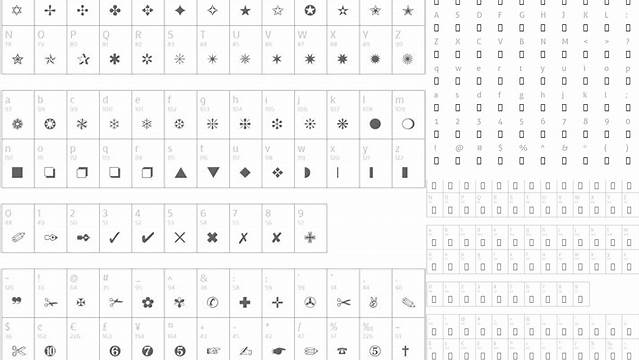
Hey guys! Ever stumbled upon those quirky little symbols and dingbats and wondered where they came from? Well, chances are, you've encountered Zapfdingbats, a classic font that's been around for ages. In this article, we're diving deep into Zapfdingbats BT Normal font, discussing where you can snag it for free, how to use it, and a bit of its history. So, buckle up, and let's get started!
What Exactly is Zapfdingbats BT Normal Font?
Let's start with the basics. Zapfdingbats isn't your typical alphabet font. Instead of letters and numbers, it's filled with a collection of symbols, icons, and dingbats. These include things like pointing hands, stars, checkmarks, scissors, and other decorative elements. The 'BT Normal' part refers to Bitstream, the company that made the font widely available. It's a specific version of the Zapfdingbats font that you'll often find bundled with other fonts or available for separate download. This makes it incredibly versatile, because it lets you add visual flair to your documents and designs. The beauty of Zapfdingbats lies in its simplicity and ease of use. You don't need any fancy design software to utilize it. You can simply type in a character, and boom, you get a symbol! This accessibility is a big reason why the font has remained popular for so many years. It offers a quick and effortless way to enhance your text and make it more engaging.
Zapfdingbats BT Normal font, is a collection of non-alphabetic characters or symbols within the typeface. It includes a variety of graphic elements, such as bullets, arrows, checkmarks, scissors, asterisks, and other ornamental glyphs. This font is not designed for standard text but serves as a supplementary tool for adding visual interest and organization to documents. Each character in Zapfdingbats corresponds to a specific symbol, and they can be inserted into text by typing the associated keyboard key. The symbols available in Zapfdingbats provide a convenient means to create visual cues, highlight important information, and enhance the overall aesthetic of written materials. Zapfdingbats font includes the common symbols such as the scissors. If you're looking for a way to add a touch of visual flair or emphasize important points in your text, this font could be a great addition to your design toolkit. Using these symbols can significantly improve the readability and visual appeal of documents, making information more engaging and easier to digest. So whether you need bullets for lists or attention-grabbing symbols to emphasize key ideas, Zapfdingbats offers a practical and user-friendly solution.
Zapfdingbats became very popular with the advent of desktop publishing, as it allowed users to easily include a variety of graphic elements in their documents without the need for external images. This made it a go-to choice for creating visually appealing brochures, newsletters, and other materials. As a result, the font saw widespread adoption and became a standard in many word processors and design software. Furthermore, because it was included with many software packages, it was readily available to a wide audience, which further solidified its status as a widely used font. Its ease of use and the range of symbols it provided made it an invaluable resource for anyone wanting to add visual interest to their text. Even today, despite the availability of more advanced design tools and a vast library of fonts, Zapfdingbats BT Normal font continues to be used by designers and everyday users alike.
Using Zapfdingbats in Your Projects
So, you've got the font installed – now what? Using Zapfdingbats BT Normal font is a breeze, guys! In most applications, simply select the font from the font dropdown menu, and then start typing. However, since this isn't a regular alphabet font, you won't get letters. Instead, each key on your keyboard will correspond to a specific symbol. There's no standard keyboard layout, so you'll have to experiment a bit to see which key produces which symbol.